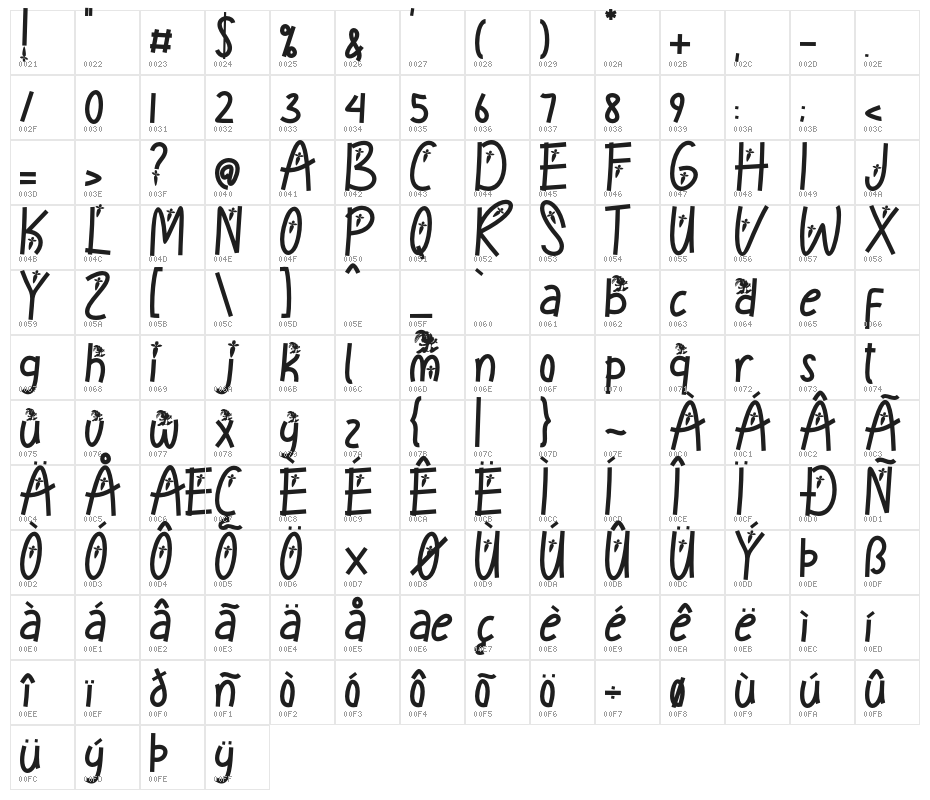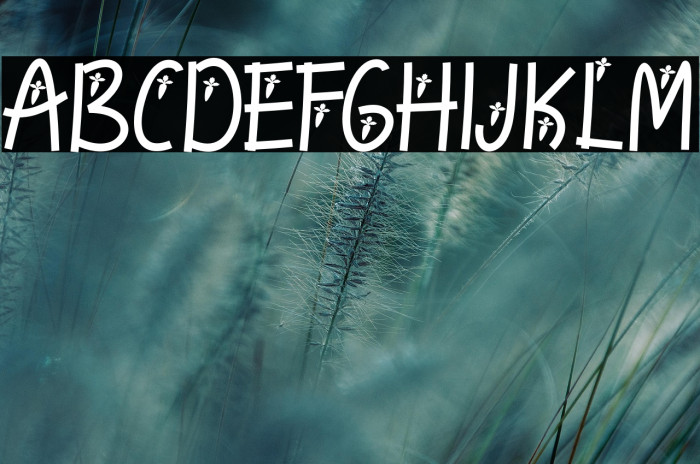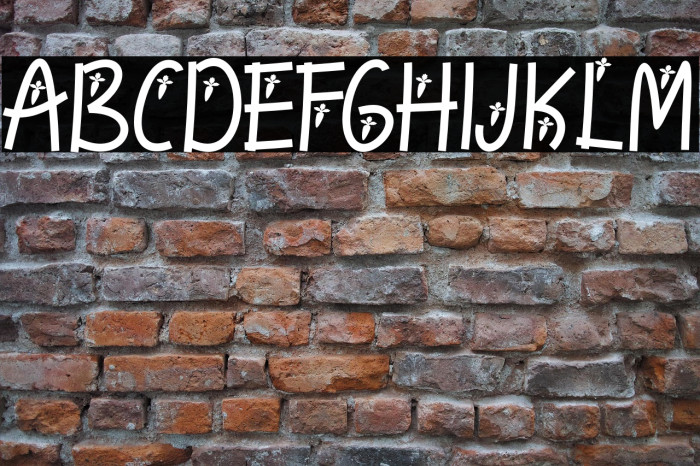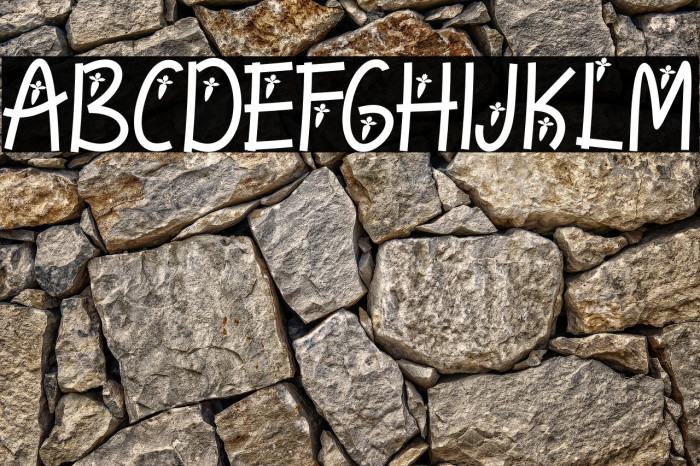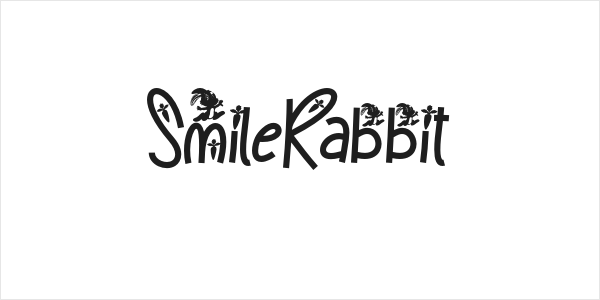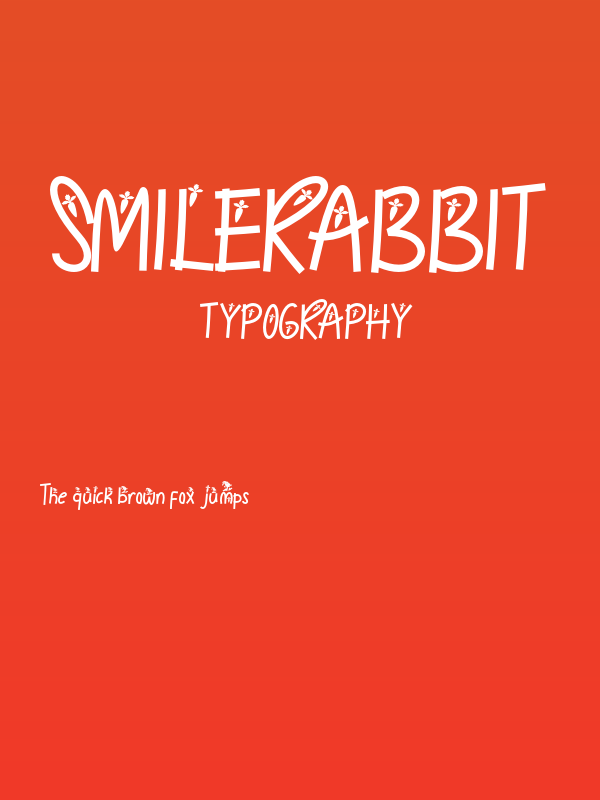
SmileRabbit Font
This playful and whimsical font features a unique design with decorative elements integrated into each character. The letters are bold and slightly irregular, giving them a hand-drawn appearance. The font includes charming illustrations of rabbits and flowers within the characters, adding a fun and lively touch. The uppercase and lowercase letters maintain a consistent style, with a slight tilt that enhances the playful nature. Numbers and special characters are also included, each with their own decorative flair. This font is perfect for projects that require a cheerful and creative aesthetic.
| Overall Style | Playful, Whimsical |
| Proposed Projects | Ideal for children's books, playful branding, greeting cards, and creative posters. |